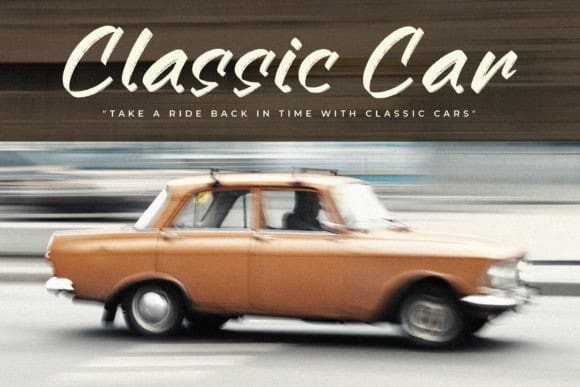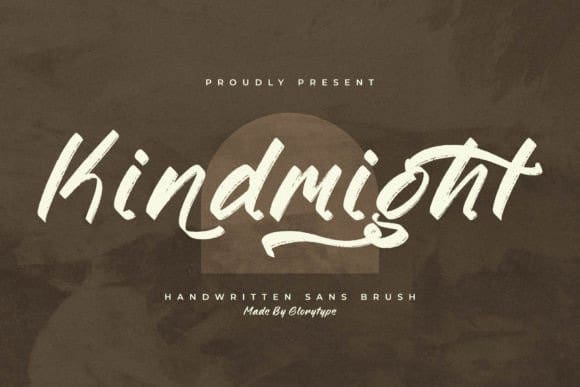
Kindmight Brush Font
Kindmight Brush Font – Handwritten Sans Brush suitable for any projects such as: logos, branding projects, homeware designs, product packaging, mugs, quotes, posters, shopping bags, t-shirts, book covers, name card, invitation cards, greeting cards, label, photography, watermark, special events, and all your other lovely projects that need a beautiful script taste.